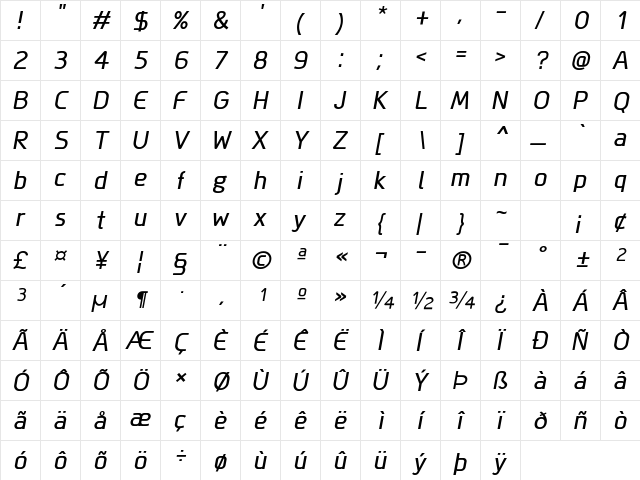
Megi Sans Italic Font Preview
Megi Sans Italic
Megi Sans Italic Font Details
Design Context for Megi Sans Typeface
Megi Sans offers clean, dependable letterforms without strong stylistic allegiance, making it a practical choice for designers who need flexibility. The slanted form adds forward momentum and visual energy.
Pro Tip: Try Megi Sans for annotation and caption copy alongside an upright companion — the contrast in angle creates a dynamic but ordered typographic system.